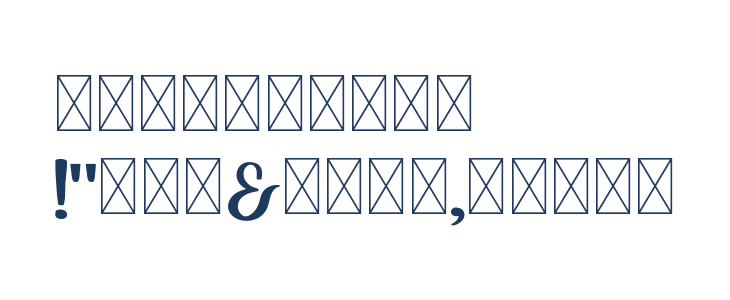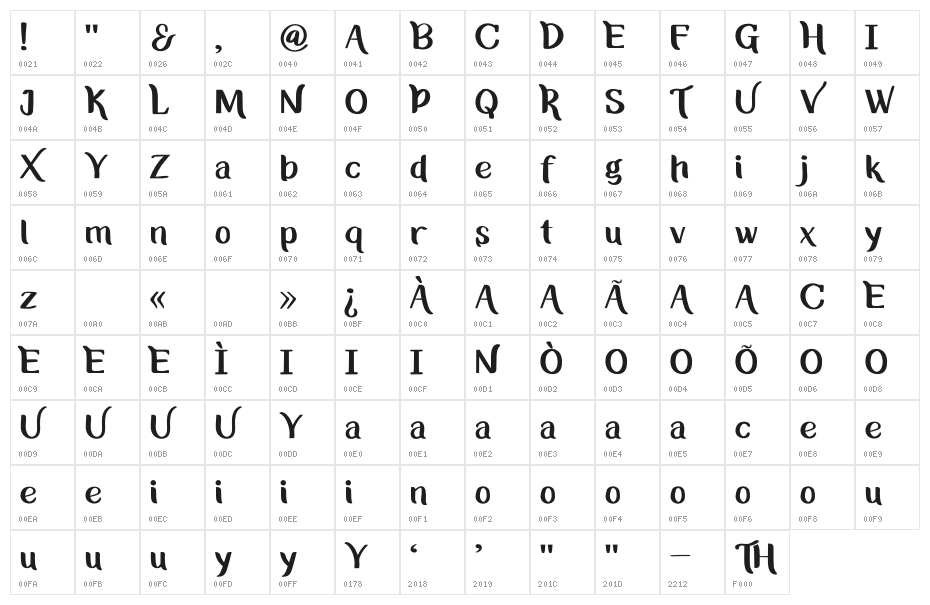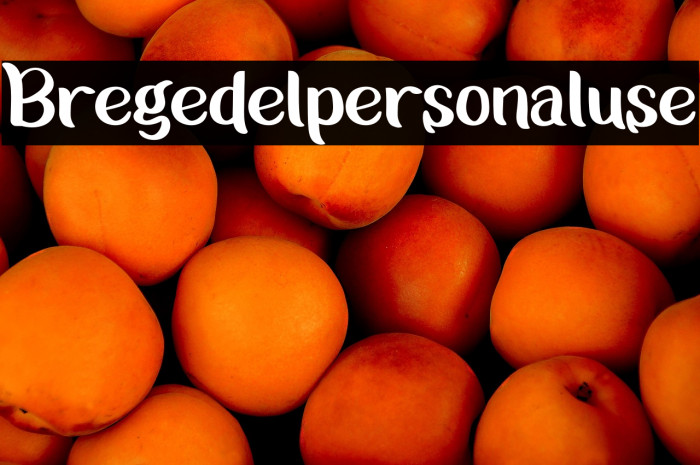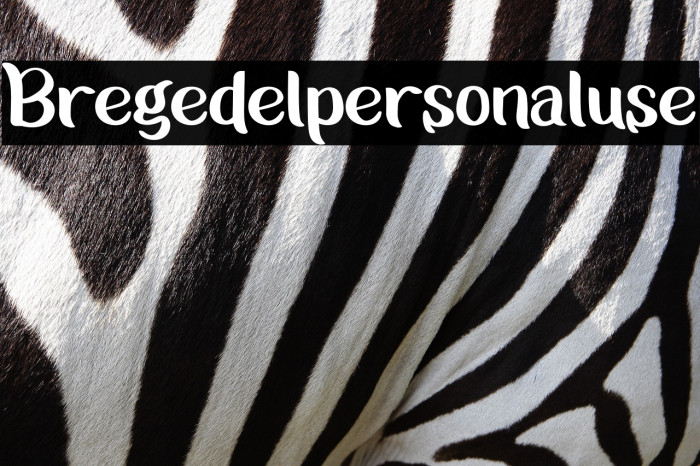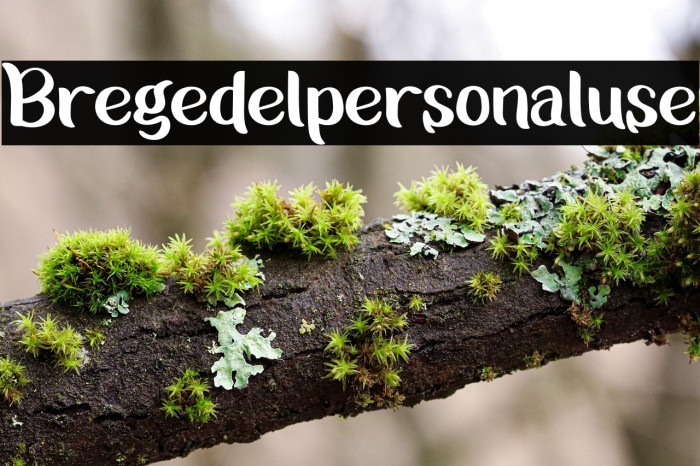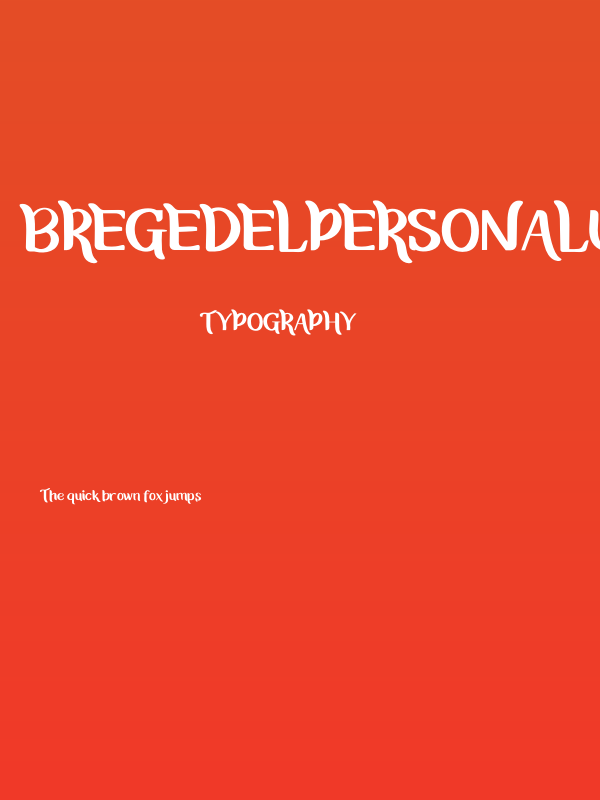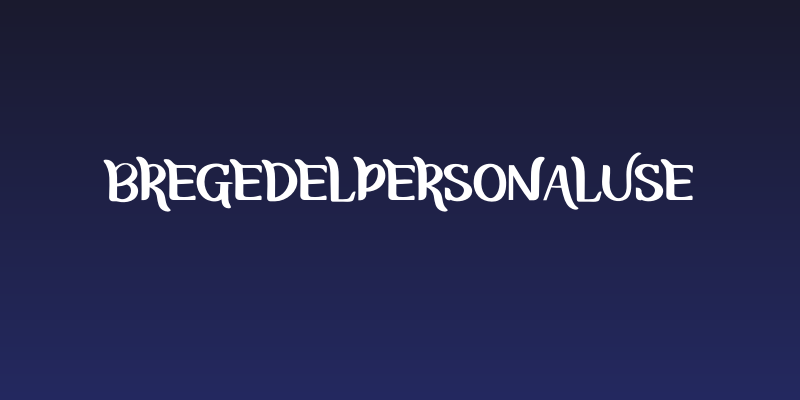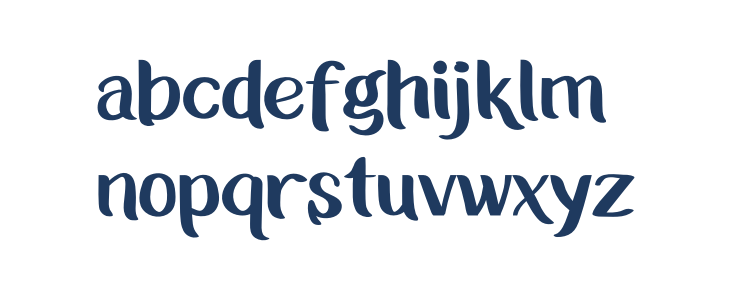
Bregedelpersonaluse Font
Bregedelpersonaluse Description
This font features a bold and expressive style with a hand-drawn appearance. The uppercase letters are characterized by their thick strokes and slight curves, giving them a dynamic and artistic look. The lowercase letters maintain a consistent style with a playful and informal touch. The overall design is reminiscent of brush lettering, with a natural flow and organic shapes. The font lacks numerals and some special characters, focusing on a creative and decorative aesthetic.
| Proposed Projects | Ideal for creative projects such as posters, invitations, and branding materials that require a unique and artistic touch. |